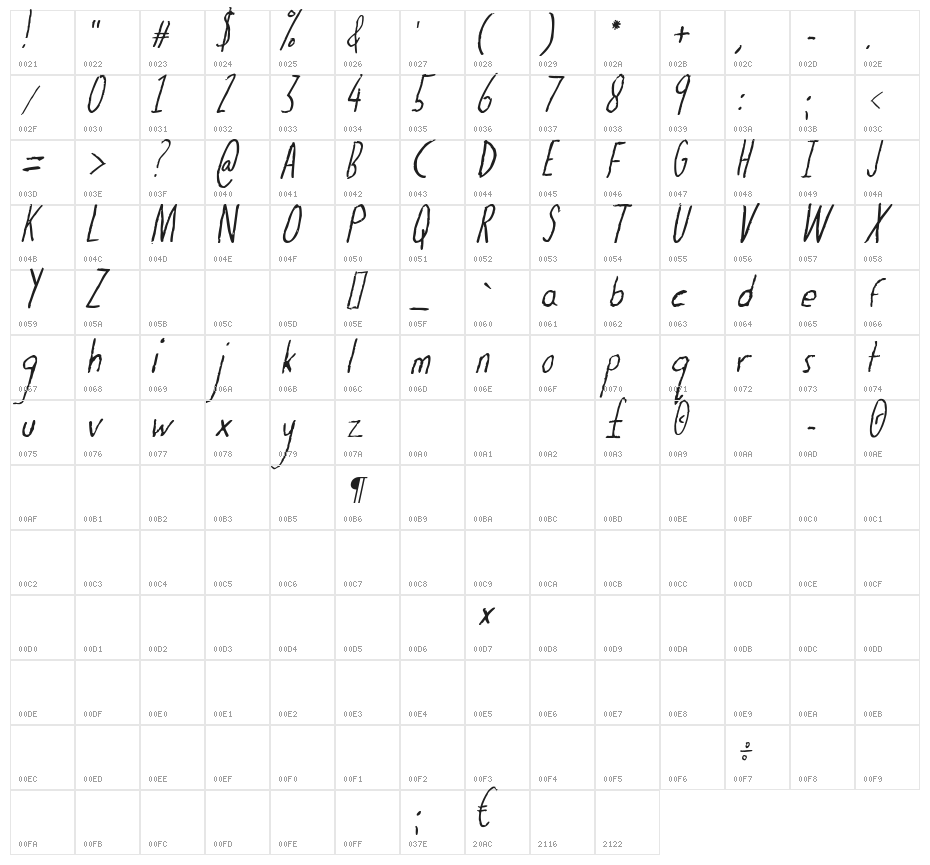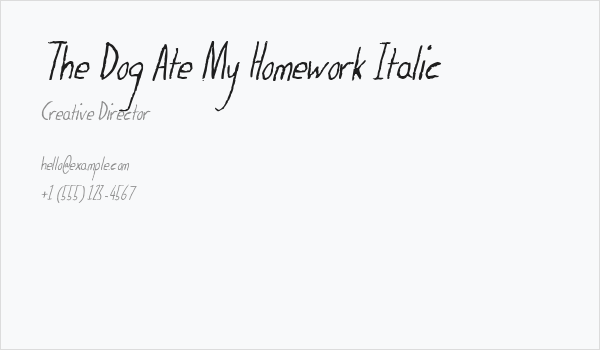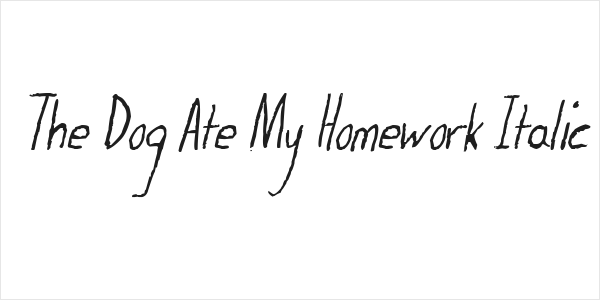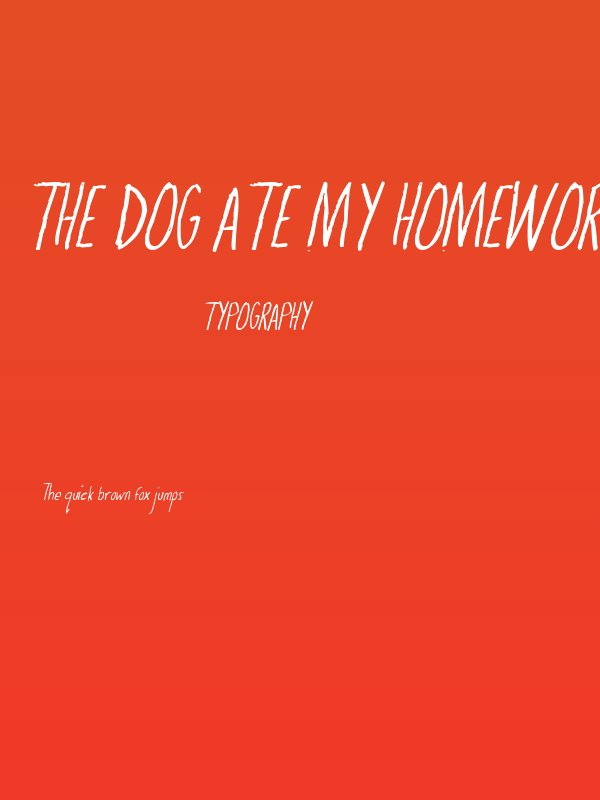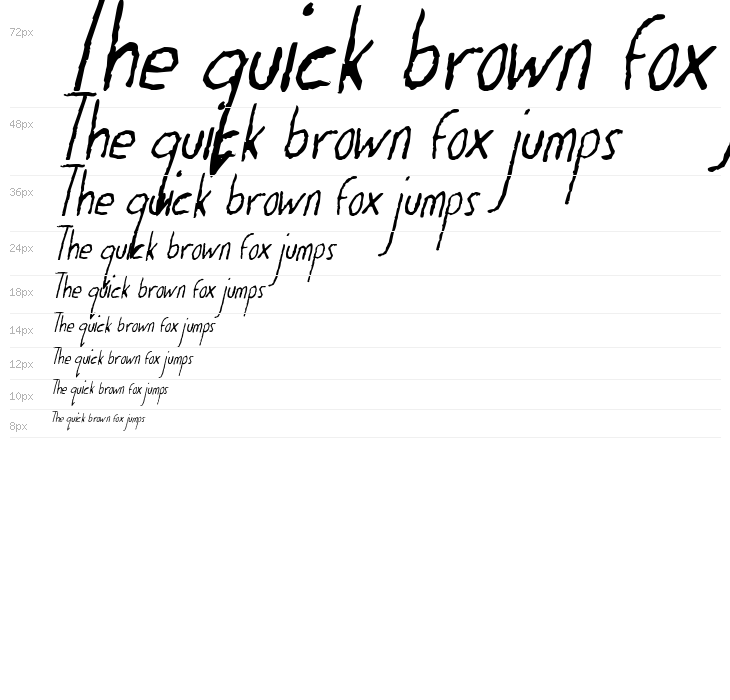
The Dog Ate My Homework Italic Font
The Dog Ate My Homework Italic Description
This playful and quirky font features a handwritten style that mimics the look of hastily scribbled notes. The letters are elongated and slightly slanted, giving them a casual and informal appearance. The strokes are uneven, with a rough texture that adds to the font's charm. It includes both uppercase and lowercase letters, numbers, and a variety of special characters. The overall design is reminiscent of a child's handwriting, making it ideal for projects that require a fun and whimsical touch.
| Overall Style | Whimsical |
| Proposed Projects | Ideal for children's books, playful invitations, casual posters, and educational materials. |